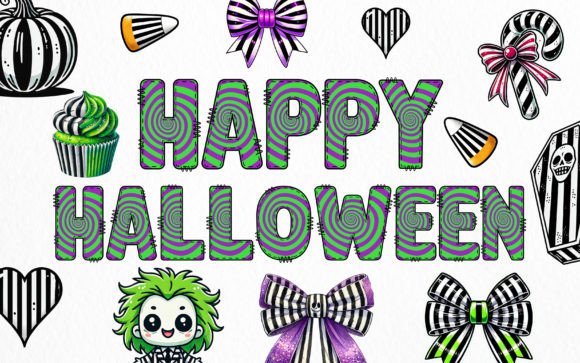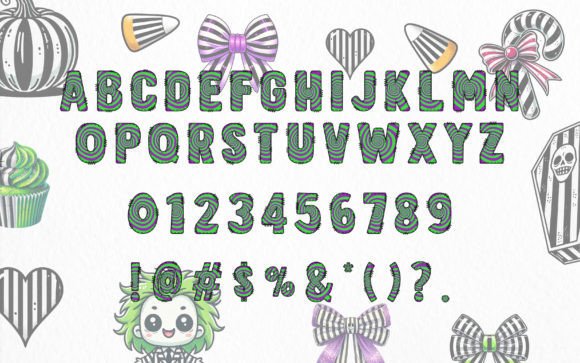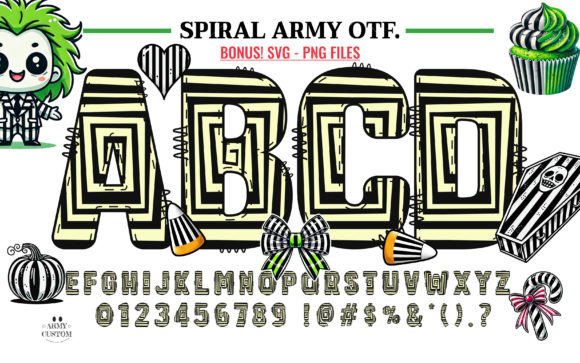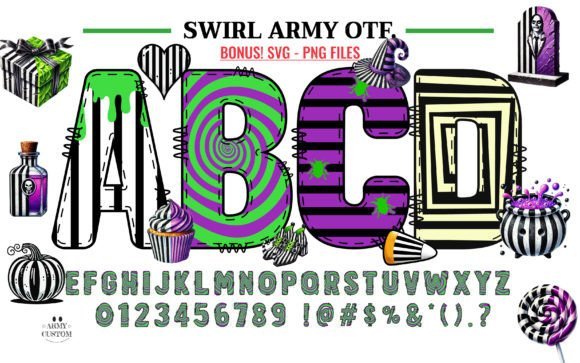
Introduction to Halloween Army Bundle Font
Introducing the spellbinding and distinct Halloween Doodle Font Color that’s sure to add an unmistakable touch of magic to your creations.
Ideal for enhancing arts and crafts projects, adding unique charm to scrapbooking endeavors, or infusing personality into stationary and cards Catch every eye with enchanted blog banners and backgrounds or transform interiors with mesmerizing wall art.
Halloween Army Bundle Font offers exceptional quality and versatility, making it a valuable addition to your design toolkit. Whether you’re creating for personal projects or commercial use, Halloween Army Bundle Font delivers professional results.